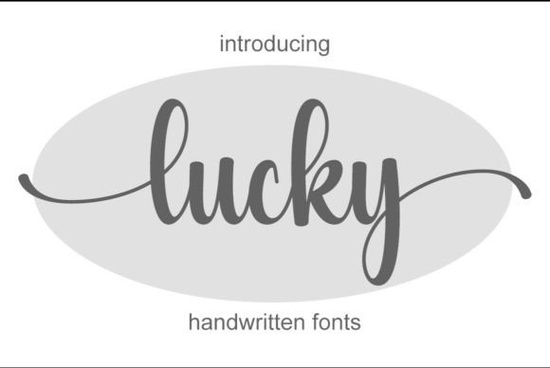
Finding the perfect script can take days if you aren't careful. You want something that looks professional but still feels personal. Many standard options appear too stiff or robotic for modern branding. That is why Lucky Font stands out among the thousands of options available on the market. It brings a soft touch to headlines while maintaining strong legibility.
If you are setting up a new shop or updating your existing brand, installing a quality typeface is often the fastest way to change the tone of your work. Lucky Font provides that balance between artistic flair and clarity. Designers often spend hours searching for a signature style, but sometimes the solution is already packaged with everything you need.
How does the PUA encoding help my workflow?
One of the most frustrating parts of using script fonts is dealing with missing letters or awkward character switches. Some libraries require complex software adjustments just to get basic punctuation to work correctly. Lucky Font solves this by being PUA encoded. This technical detail means the font file contains a larger set of characters, including alt symbols and special glyphs, directly accessible within standard text editors.
You do not need extra plugins to access these extras. Whether you are working in Adobe Illustrator, Canva, or InDesign, the alternate forms are built into the file. This saves hours of manual kerning and editing time. When you switch to a new tool for a client project, having a robust library ensures continuity across different platforms. It reduces errors and prevents the frustration of broken ligatures during final export.
Which projects suit this delicate style?
This typeface shines brightest when you need to convey warmth without cluttering the visual space. Its delicate strokes are ideal for wedding invitations, where traditional serif fonts might feel too rigid. Imagine a save-the-date card with subtle curves alongside photos; this font adds personality without overpowering the imagery.
- Social Media Graphics: Instagram captions and Facebook banner overlays benefit from handwritten textures. It draws the eye more effectively than a heavy bold sans-serif in feed scrolling.
- Print-on-Demand Products: Sellers creating custom tumblers, tote bags, or mugs often struggle to find a font that prints cleanly. The stroke weight here strikes a good balance for vinyl cutting machines.
- Logos and Branding: Small businesses in wellness, beauty, or boutique retail sectors can use this to create a memorable monogram. A logo designed with clean lines builds trust.
- Business Cards: Names printed in this script look high-end when paired with plenty of negative space on matte paper finishes.
Are there similar styles worth exploring?
Every designer has a unique preference regarding curvature and speed. While this specific typeface fits many briefs, some clients ask for a slightly bolder approach or a more formal feel. Exploring a wider catalog helps you present more choices to customers. If you are looking for a style with more movement, Winky Swing introduces a fun, swinging motion that works well for party themes.
Sometimes you need a font that feels stable yet casual. Saturday Script offers a relaxed attitude without losing professionalism, making it excellent for lifestyle blogs. For projects requiring longevity in memory, such as anniversary albums, Forever Handwriting captures a timeless sentiment with its classic flow.
When elegance is the top priority, Randy Sofia Typeface serves as a sophisticated alternative for luxury branding. Conversely, seasonal campaigns demand specific textures. During autumn months, Farmhouse Pumpkin Font connects strongly with cozy themes and harvest events. Having these options in your toolkit allows you to pivot quickly when client requests change direction.